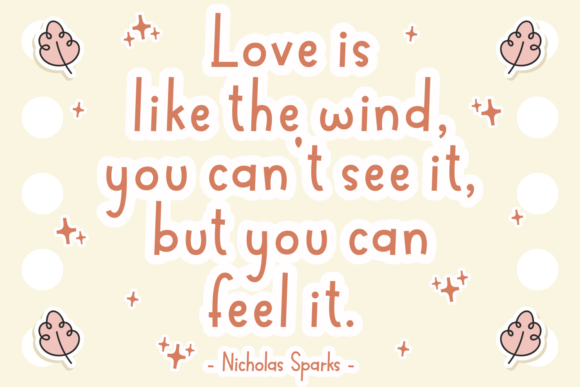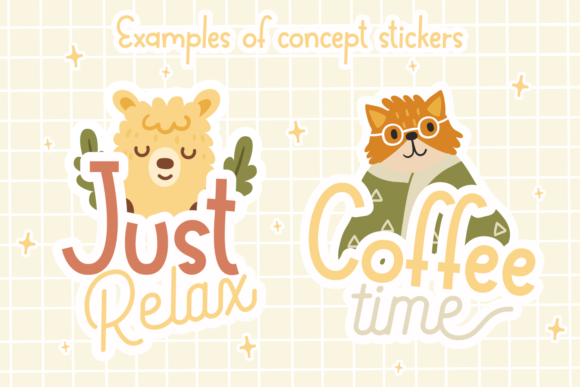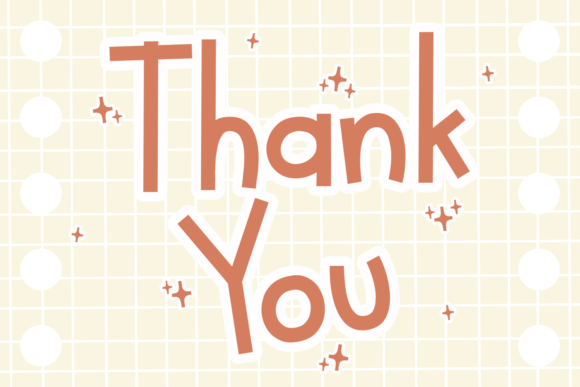
Adding a Dash of Joy to Your Designs
Have you ever stared at a blank canvas, searching for that perfect spark to bring your creative idea to life? For many designers, it’s a moment of pure excitement and nervous anticipation. Will this project be the one that sets your work apart from the rest?
Enter the Andyne Font, a bold and cute handwritten font that’s sure to add an incredibly joyful touch to your designs. This beautiful display font is designed to make your creative ideas stand out in a crowded market. With its playful and whimsical feel, Andyne Font is the perfect addition to any project looking for a little extra oomph.
For designers, the value of a font like Andyne lies in its versatility and ability to add a personal touch to any design. Whether you’re working on a children’s book, a greeting card, or a social media campaign, Andyne Font is sure to bring a smile to your audience’s face.
Andyne Font Key Features
- Font Family: Andyne Font is a sans-serif font family, designed to provide a clean and modern look for digital and print media.
- Font Size: The font family includes 8 font weights, ranging from Light (300) to Black (900), to cater to various design requirements.
- Language Support: Andyne Font supports a wide range of languages, including Latin, Cyrillic, and Greek scripts, making it suitable for global content creation.
- Unique Characteristics: The font features a unique blend of geometric and organic shapes, resulting in a distinctive and recognizable visual identity.
Andyne Font Review
I recently had the chance to work with the Andyne Font, and I must say it’s a unique addition to any design project. ✨ Here are some aspects that stood out to me:
- Its clean and modern aesthetic makes it perfect for digital interfaces, corporate branding, and publishing materials.
- The font’s rounded edges give it a friendly and approachable feel, which is great for applications where you want to convey a sense of warmth and inclusivity.
- It’s highly legible, even at small font sizes, making it an excellent choice for body text.
However, there are a few limitations I encountered:
- ⚠️ The font may not be as versatile as some other fonts in terms of its ability to convey complex ideas or emotions. It’s best suited for projects that require a clean and straightforward message.
- ⚠️ Some users may find the font too simple or generic, which could be a concern for projects that require a unique and attention-grabbing look.
Overall, I think the Andyne Font is a solid choice for designers who want a clean, modern, and highly legible font for their projects. While it may not be the most versatile font out there, it excels in its simplicity and is definitely worth considering for the right project.
Getting the Most Out of Andyne Font
For best results, use the Andyne Font in conjunction with high-contrast backgrounds and bold, eye-catching graphics. This font is ideal for creating attention-grabbing headlines and titles.
The Andyne Font is commonly used in:
- Marketing materials (brochures, flyers, posters)
- Headlines and titles in digital design
Alternatives to Andyne Font for Designers
Merrweather is a classic serif font, suitable for use in long blocks of text, such as books, articles, and documents. It has a traditional, elegant feel that evokes a sense of sophistication and professionalism.
Compared to Andyne Font, Merriweather has a more formal and traditional feel, whereas Andyne Font has a modern and minimalist aesthetic. Merriweather is also more suitable for print materials, while Andyne Font is versatile for both digital and print use.
Lato is a modern sans-serif font that is highly legible and versatile. It’s suitable for use in a wide range of applications, from digital products to print materials, and is particularly effective for headlines and titles.
Yes, the Andyne Font is specifically designed for digital use and is optimized for high-resolution displays. It features clear, legible characters and is suitable for use in a variety of digital applications, including web design, mobile apps, and more.